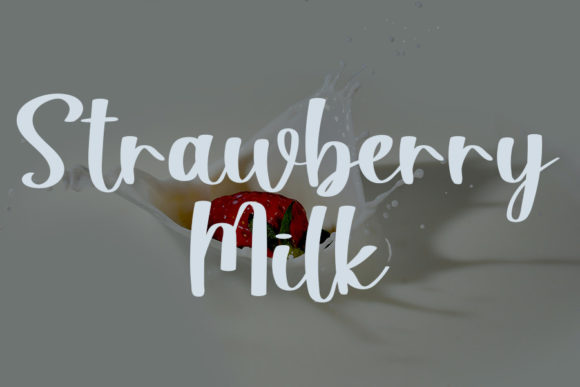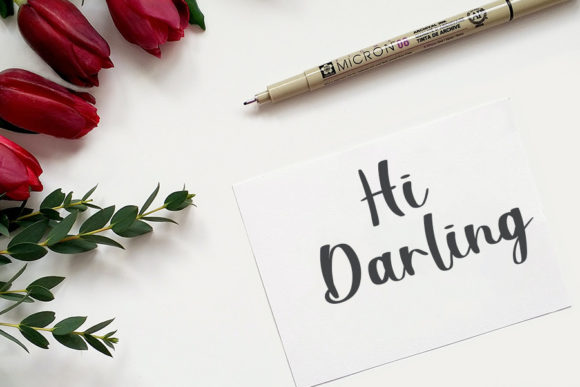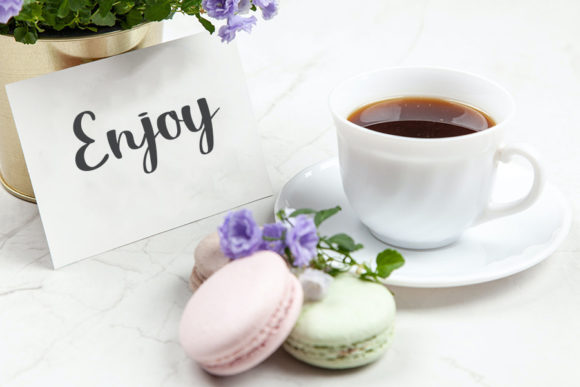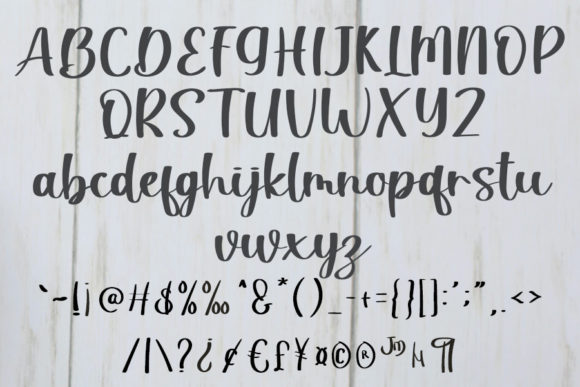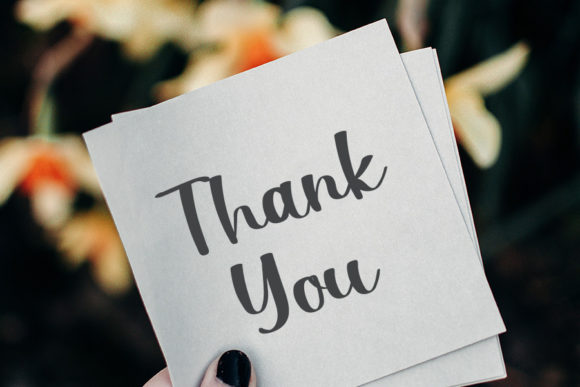
The Quest for the Perfect Font: How Fresh Coconut Stole My Heart
Ah, the eternal struggle of finding the perfect font for a design project! I recall a particularly frustrating moment when I was working on a branding project for a trendy new cafe. My client wanted a font that was modern, yet elegant; playful, yet sophisticated. I scoured the internet, tried out dozens of fonts, but nothing seemed quite right. That was until I stumbled upon Fresh Coconut, a beautiful handwritten font that instantly captured my heart. In this article, I’ll share my love affair with Fresh Coconut, its features, and how to make the most of it in your designs.
An Honest Review of Fresh Coconut
- ✨ Balanced and varied: Fresh Coconut has a wonderful balance of thick and thin strokes, making it easy to read and visually appealing.
- ✅ Modern vibe: This font has a distinctly modern feel, perfect for projects that require a fresh, contemporary look.
- 💫 Spotless form: The font’s clean lines and curves make it perfect for use in a variety of design applications, from logos to headings.
- 🎨 Versatile: Fresh Coconut works beautifully in both digital and print designs, making it a great addition to any design library.
While Fresh Coconut is an amazing font, it’s not perfect. Here are a few things to keep in mind:
- 🤔 Limited availability of certain characters: Some users have reported that certain special characters or glyphs are not available in Fresh Coconut. However, the font does come with a range of OpenType features that can be accessed in compatible software.
- ⚠️ May not be suitable for body text: Due to its elegant, cursive nature, Fresh Coconut may not be the best choice for long blocks of body text. It’s better suited for headings, titles, and short paragraphs.
A Practical Guide to Using Fresh Coconut
- Experiment with OpenType features like swashes and stylistic alternates to add some extra flair to your design.
- Experiment with different features like ligatures, swashes, and stylistic sets to add some personality to your text.
The Story Behind Fresh Coconut
Fresh Coconut was designed by a talented typographer who’s passionate about creating beautiful, functional fonts. Inspired by classic calligraphy, the designer aimed to create a font that’s both modern and elegant. With its balanced strokes and spotless form, Fresh Coconut is the perfect addition to any design library.
| Font Name | Fresh Coconut Font |
| Author | NYA Letter |
Q: What type of projects is Fresh Coconut best suited for?
A: Fresh Coconut is versatile and can be used in a variety of projects, from branding and logos to headings and titles.
Q: Is Fresh Coconut available in different weights or styles?
A: Fresh Coconut comes in a single weight, but its elegant design and OpenType features make it easy to use in a variety of contexts.